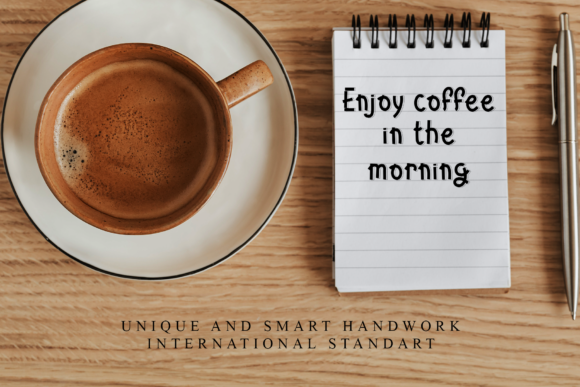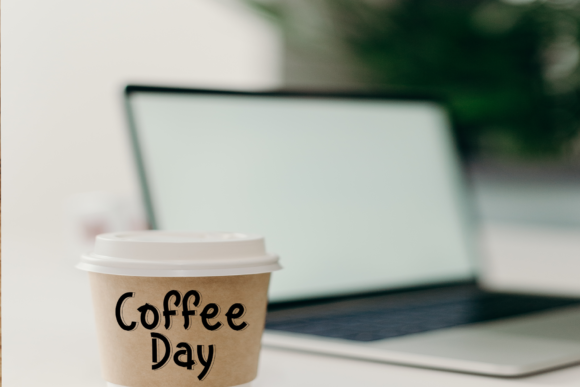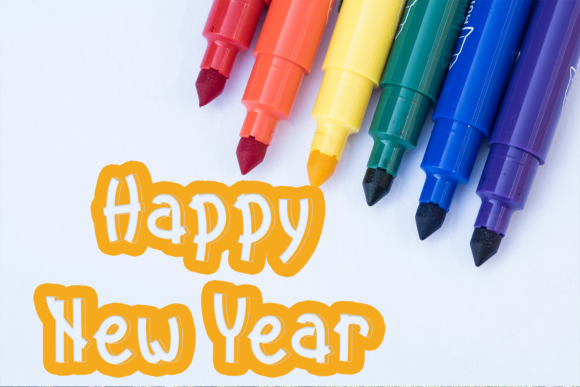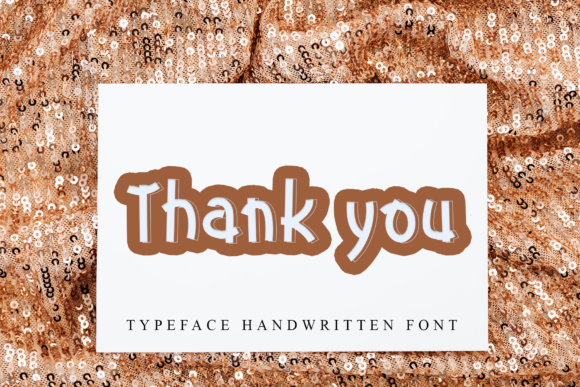
Stand Out with Style: Unleashing the Power of Busy Bear Font
Remember that moment when you finally nailed the perfect design concept, but something was missing? The words didn’t quite pop, and the overall look felt flat. That’s where the magic of typography comes in – a well-chosen font can be the game-changer you need to elevate your design to the next level.
Enter Busy Bear Font, a bold and eye-catching display font that’s sure to make your designs stand out from the crowd. With its thick, strong letters, Busy Bear Font is perfect for grabbing attention and making a statement. Whether you’re creating a bold headline or a eye-catching logo, this font is sure to bring your design to life.
As a designer, you know the importance of choosing the right font for the job. Busy Bear Font is a valuable addition to any design toolkit, offering a unique and versatile solution for when you need to make a big impact.
Busy Bear Font Key Features
- Font Family: Busy Bear Font
- Unique Characteristics:
- Hand-drawn illustrations and playful typography
- Perfect for children’s books, educational materials, and fun designs
Busy Bear Font Review
Overall, I’d say the Busy Bear Font is a unique and playful font that could add some charm to certain projects. ✨ Its cursive and handwritten feel makes it perfect for designs that need a more personal touch. ✨ The font’s irregularities and variations in line width and spacing create a sense of movement and energy, which could be great for illustrating dynamic and lively concepts. ✨
- Works well for designs that require a playful, handwritten feel
- Perfect for illustrating dynamic and lively concepts
- Can add a personal touch to designs
However, there are some limitations to consider. ⚠️ The font can be a bit hard to read in certain contexts, particularly in small sizes or when used extensively in large blocks of text. ⚠️ Additionally, the font’s irregularities can sometimes make it difficult to achieve perfect alignment and consistency. ⚠️
- Can be difficult to read in small sizes or large blocks of text
- Might require extra effort to achieve perfect alignment and consistency
Overall, I think the Busy Bear Font is a great choice for designs that need a playful and dynamic feel, but it’s essential to be aware of its limitations and use it judiciously. With some careful planning and consideration, this font can be a great addition to your design toolkit.
Some tips for getting the most out of Busy Bear Font include using it for headings and titles, as its bold and playful design makes it perfect for grabbing attention. You can also use it for body text, such as in social media posts or blog articles, to add a touch of whimsy and personality to your content. Common use cases include branding and marketing materials, children’s educational materials, and creative projects.